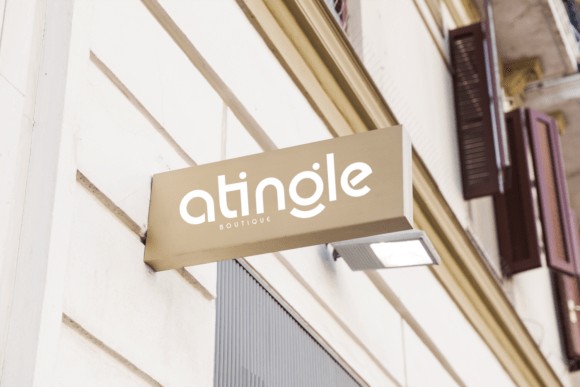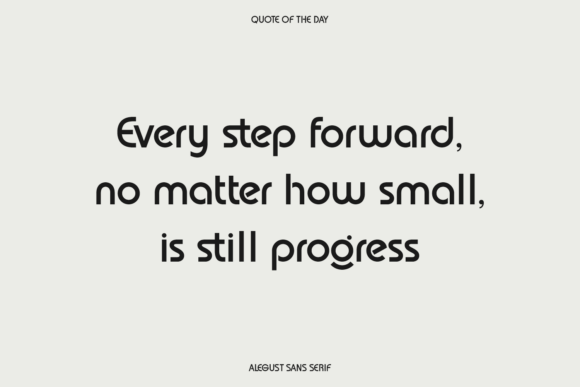
Alegust Font
A promotional image for “Alegust,” a new modern sans serif typeface. The accompanying text describes Alegust as a versatile font that blends simplicity with elegance, featuring clean lines and a sophisticated character, making it ideal for branding, logos, editorial layouts, and user interface design.